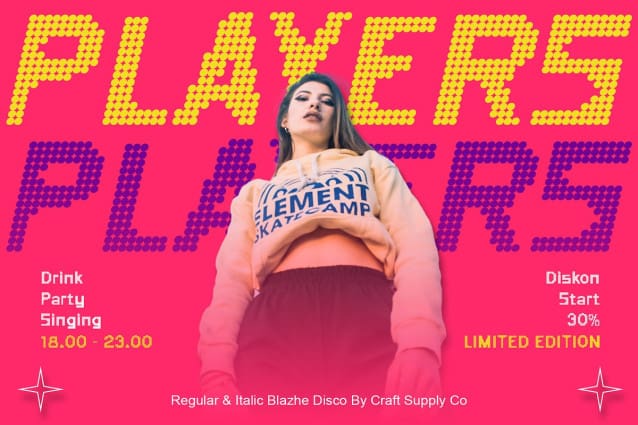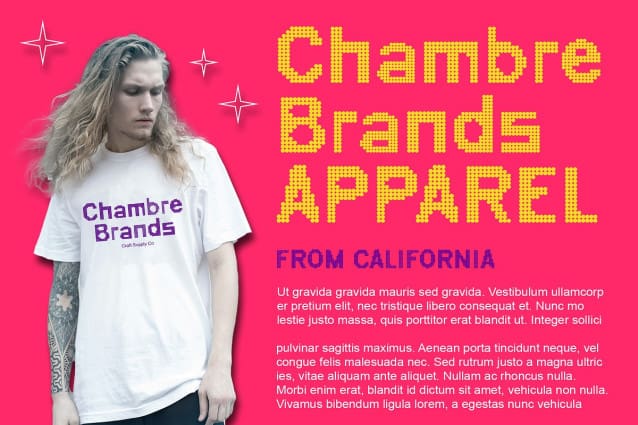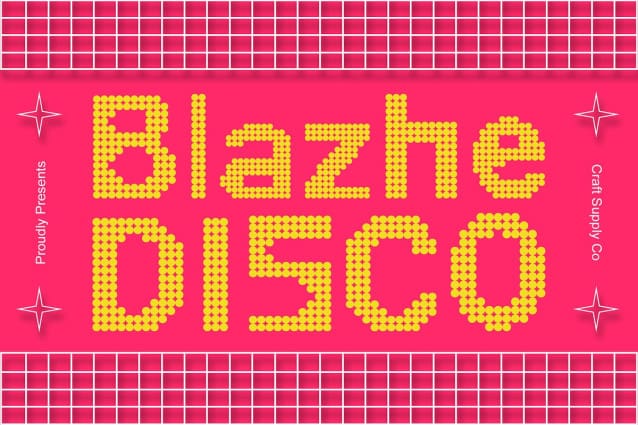
Blazhe Disco Font
Blazhe Disco Font: Unleash the Disco Vibes. Futuristic Sans Serif Design Blazhe Disco features a contemporary sans serif design with a futuristic twist. Its sleek and stylish appearance makes it perfect for a wide range of display applications.
Dazzling Dot Style Effects With its captivating dot style effects, This font brings a touch of disco-inspired flair to your designs. Each character dances with energy and vibrancy, adding excitement to any project.
Versatile for Display Needs Tailored for display purposes, This font is versatile and adaptable. Whether it’s for posters, banners, or digital displays, its modern and dynamic aesthetic ensures maximum impact.
Captivating Disco Nuances Embrace the disco vibes with This font unique design. Its lively and dynamic appearance captures the essence of disco culture, making it an ideal choice for projects that demand attention.
Where Style Meets Energy This font combines contemporary sans serif elegance with disco-inspired dot style effects to create a font that’s both stylish and energetic. Bring your designs to life with This font and let the disco vibes shine through.